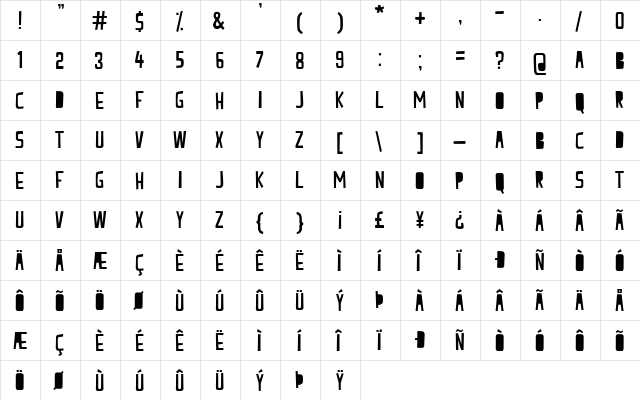
Peach Milk Regular
Design Context for Peach Milk Typeface
Peach Milk offers clean, dependable letterforms without strong stylistic allegiance, making it a practical choice for designers who need flexibility.